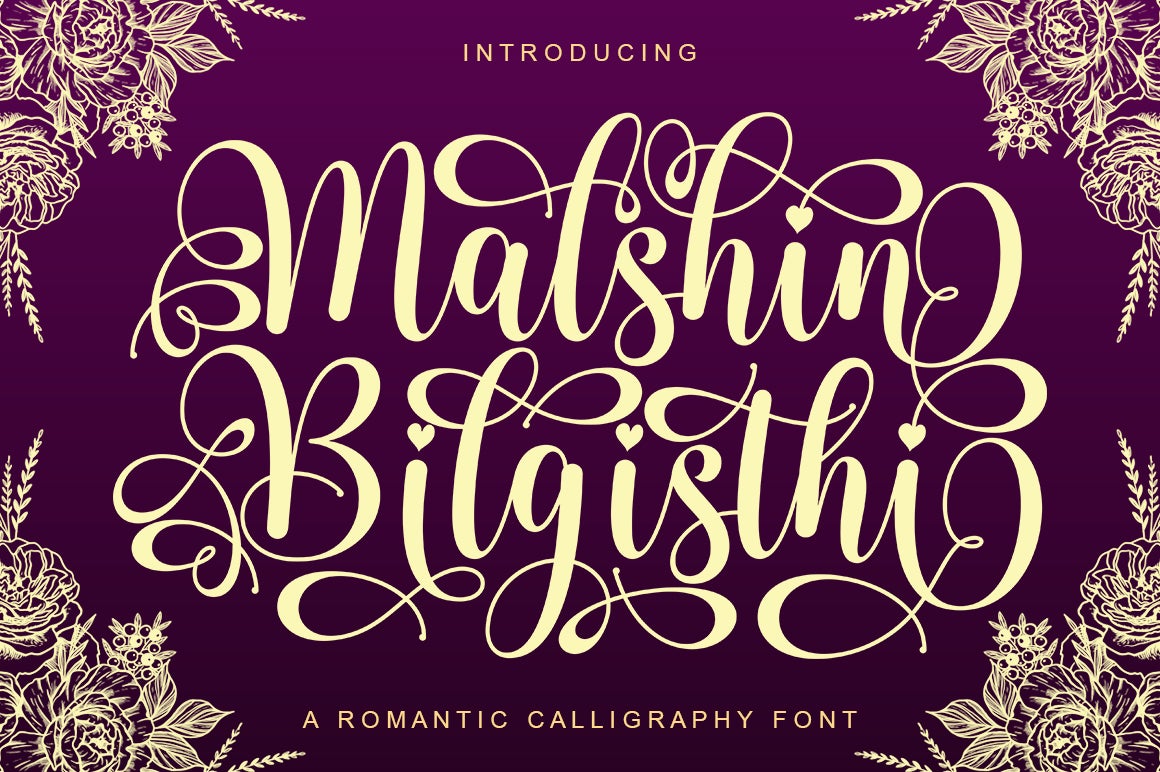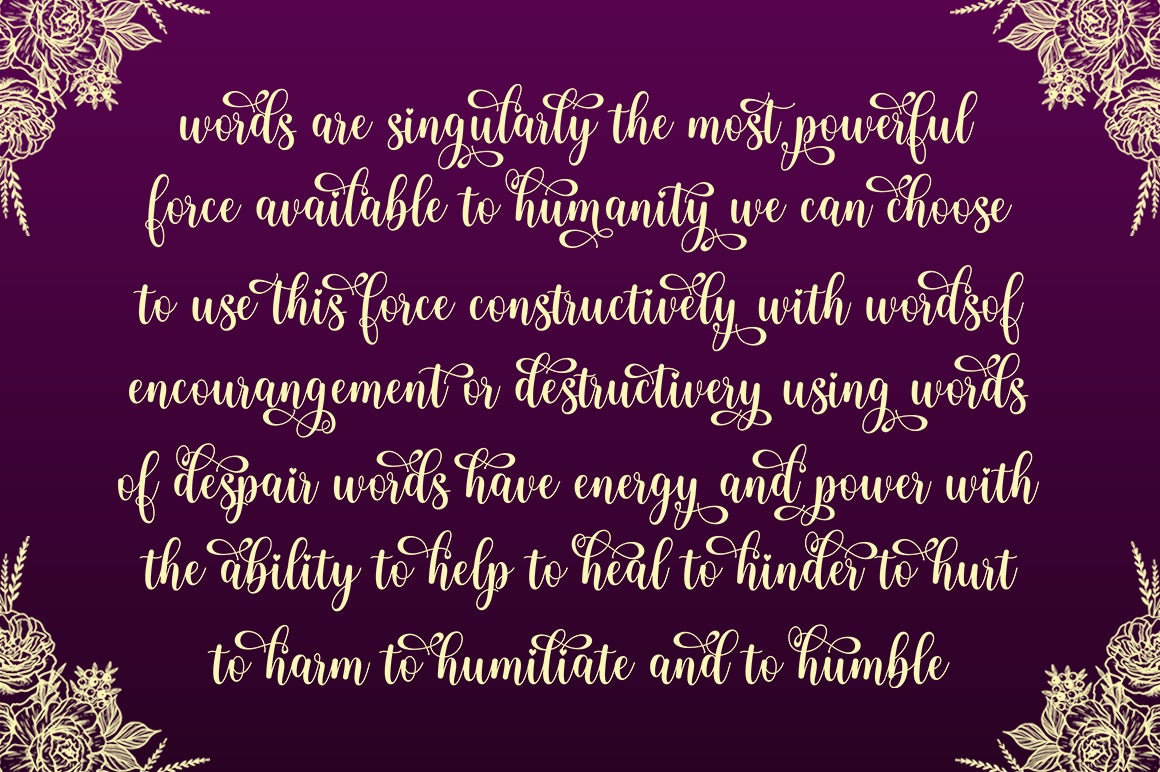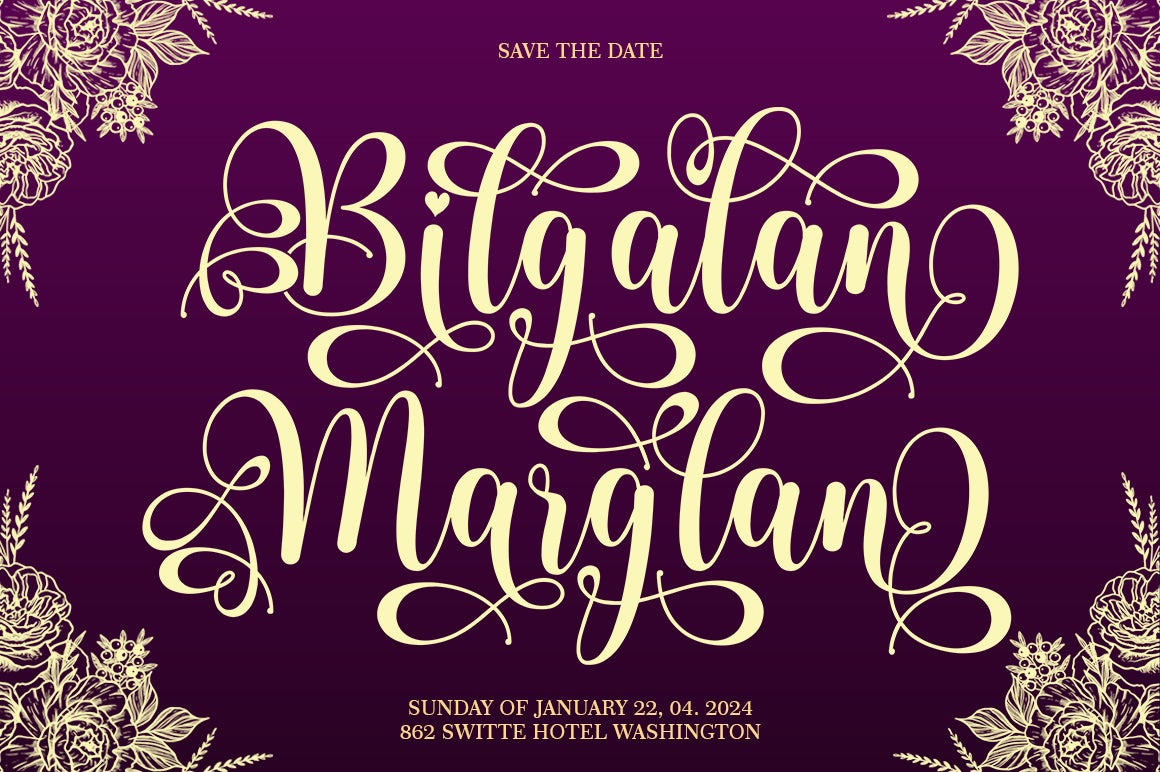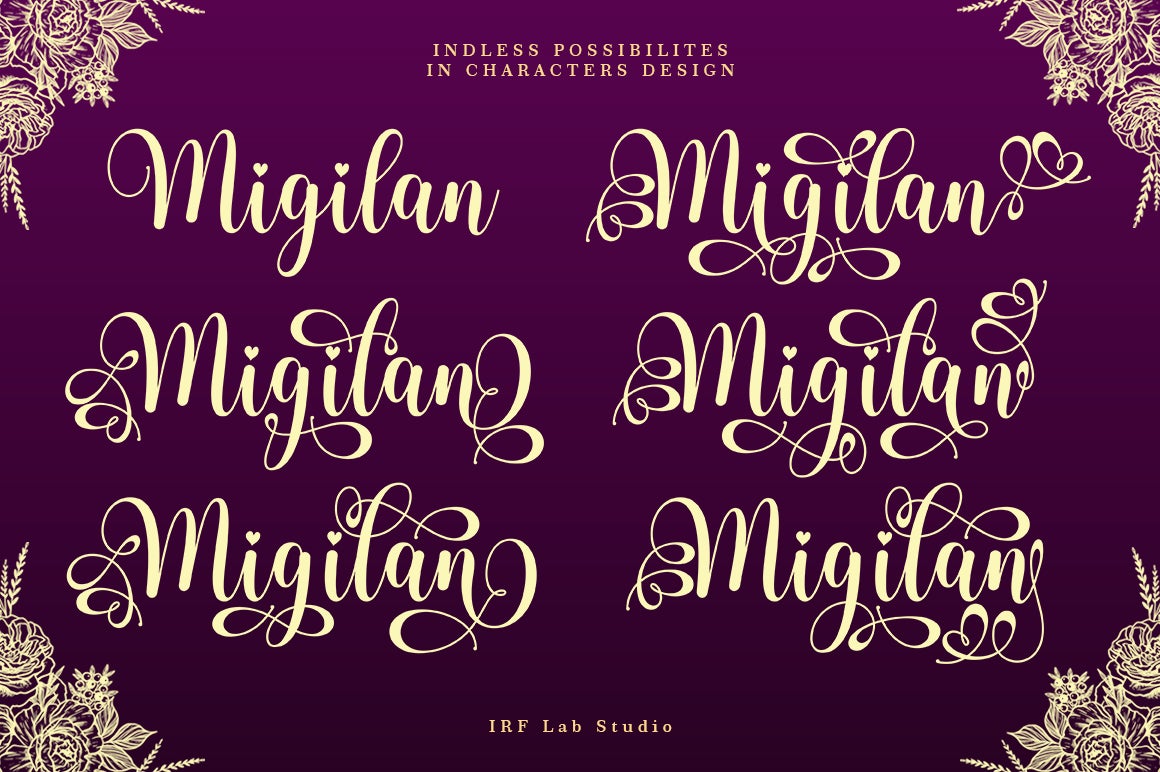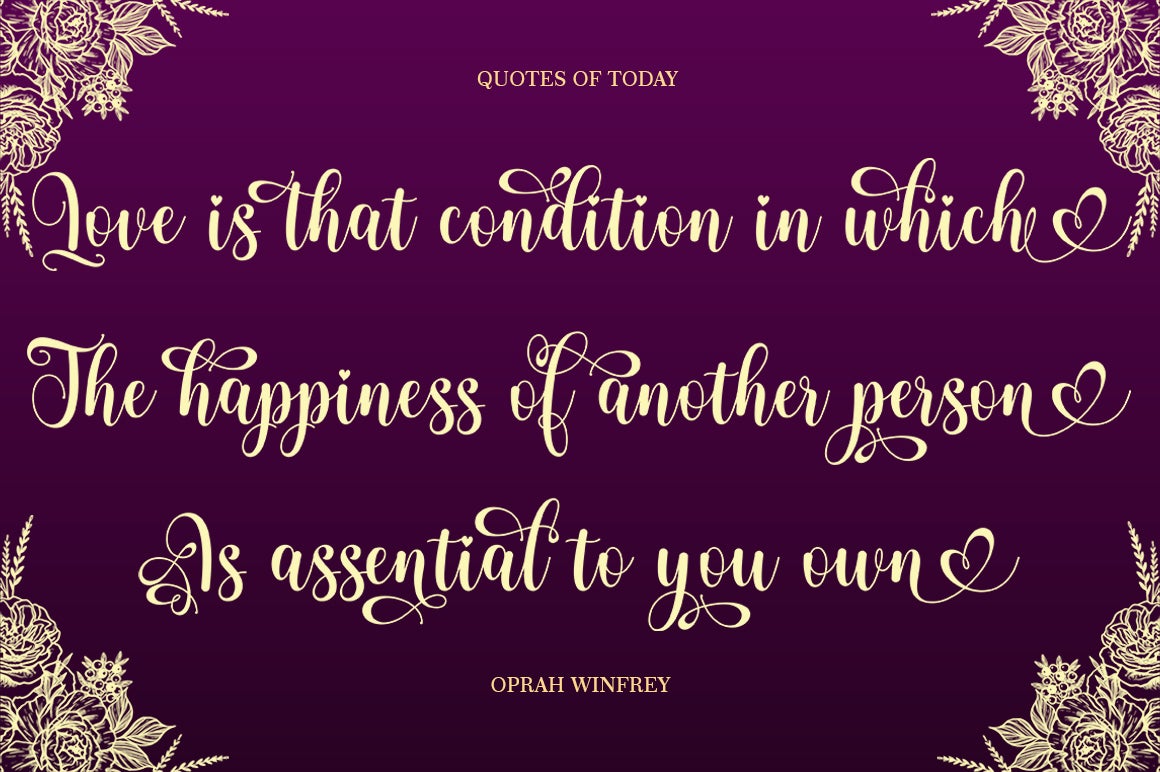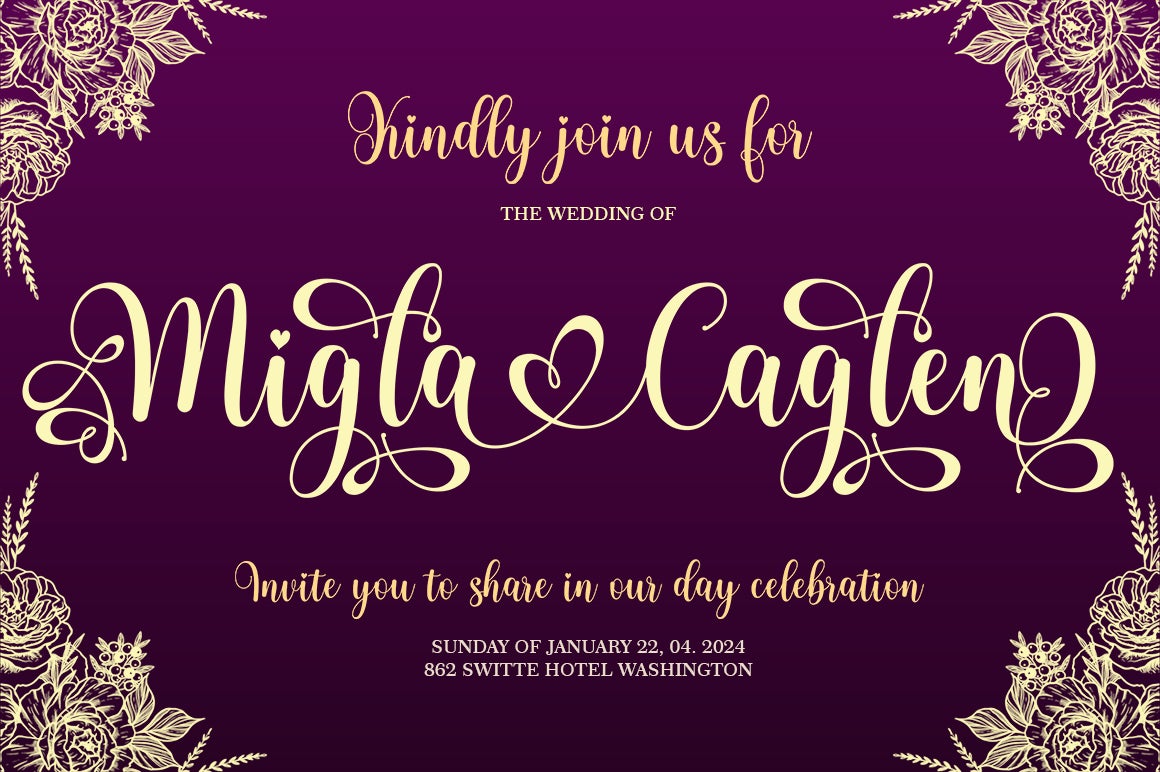
Malshin Bilgisthi
About Malshin Bilgisthi
Introducing Malshin Bilgisthi in a beautiful handwritten style. Equipped with 333 glyphs. Malshin Bilgisthi is perfect for branding projects, home appliance design, product packaging, use in business cards, invitation cards, etc. Simply as a stylish text overlay onto a background image or anything that requires a touch of elegance. Files include: Malshin Bilgisthi. Otf Malshin Bilgisthi. Ttf